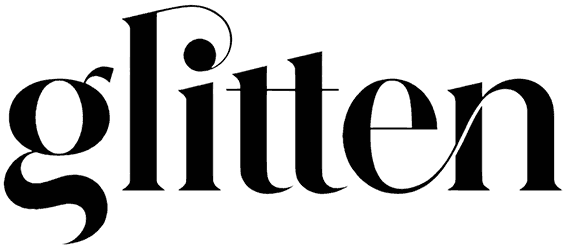
If you still haven’t been able to choose a good font for your website, Glitten can be the end of your search. This luxury serif font, with 2 styles, is the best option for programmers who want each part of their code to be completely readable and clear.
This ligature font can be used in other designs that require seriousness and professionalism. So whenever simplicity becomes important to you, you can remove this font from your collection.